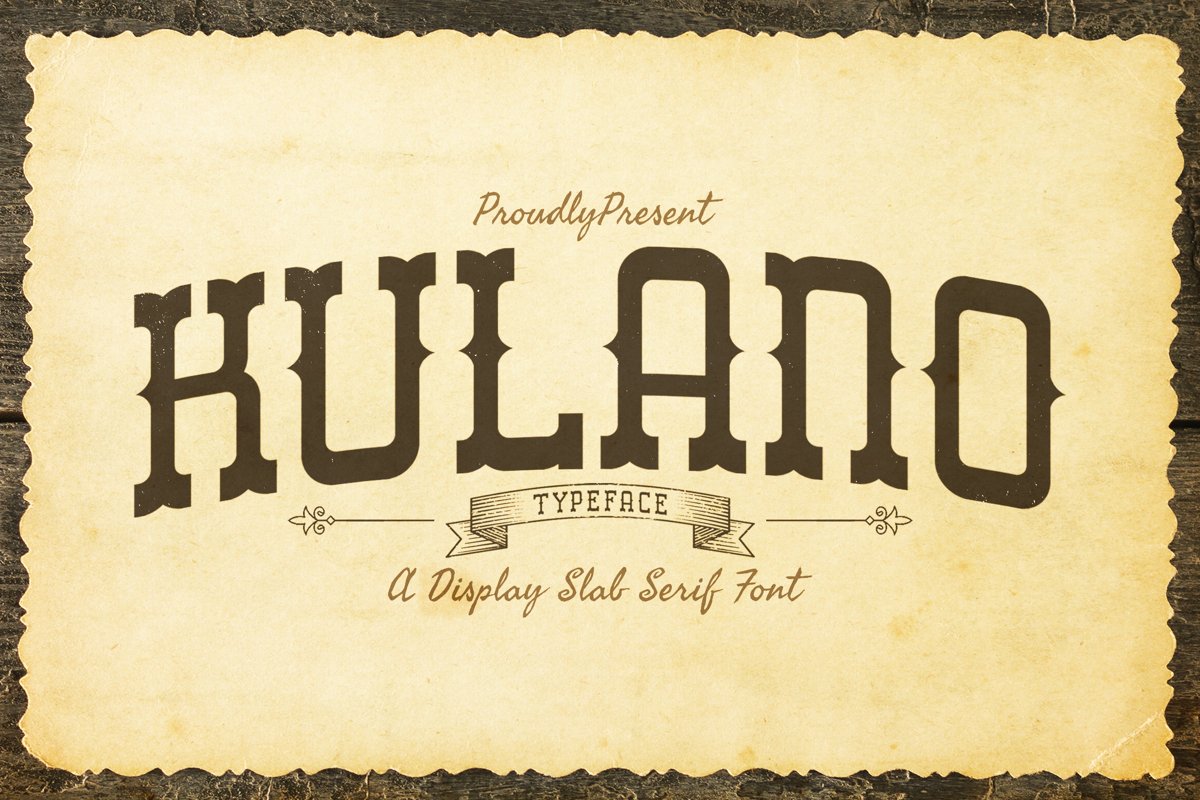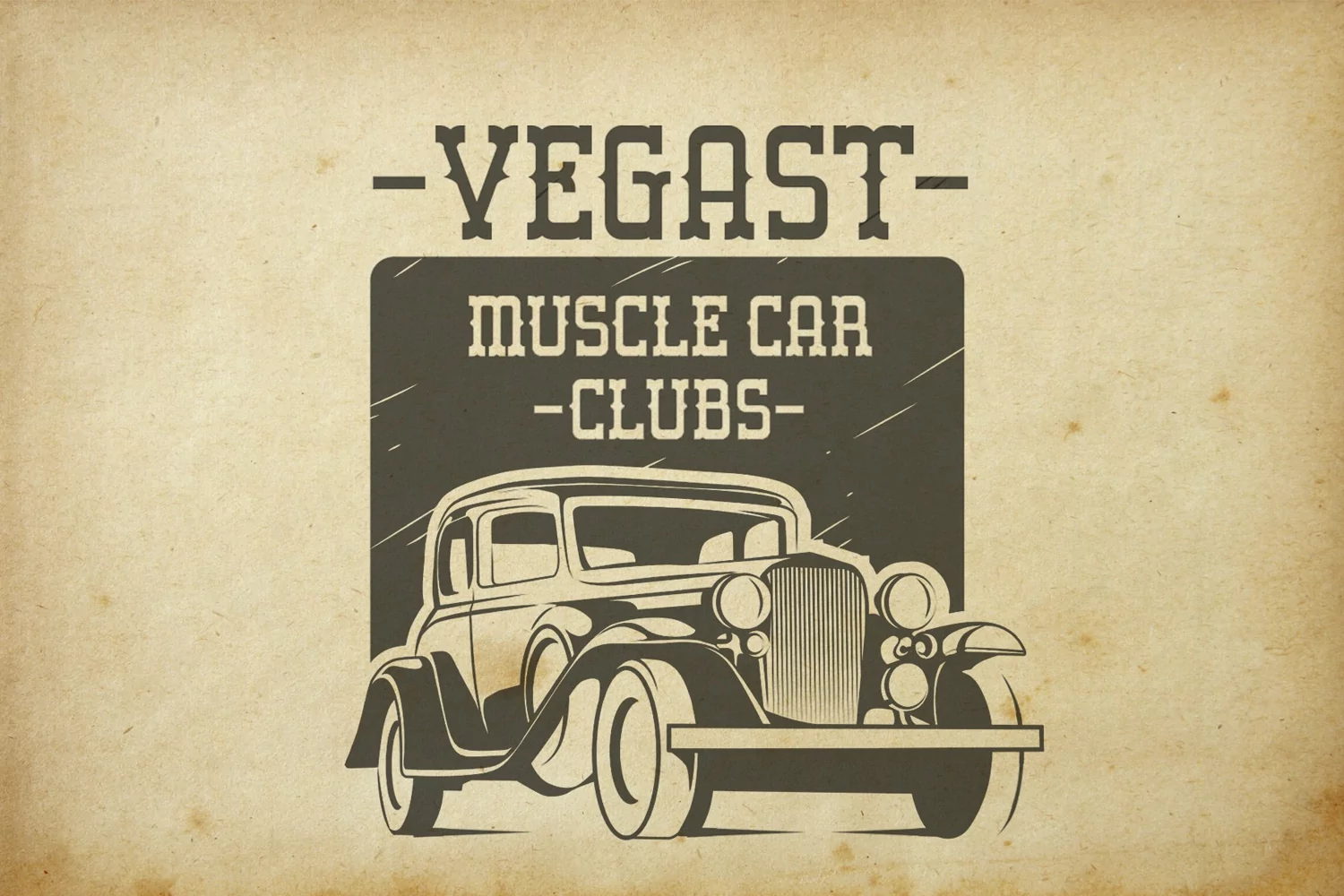
Kulano is a display slab serif font. Perfect for display, poster, quotes, film, craft needs, book cover, business card, packaging, merchandise, branding, logo, logotype, header, title, and many more.